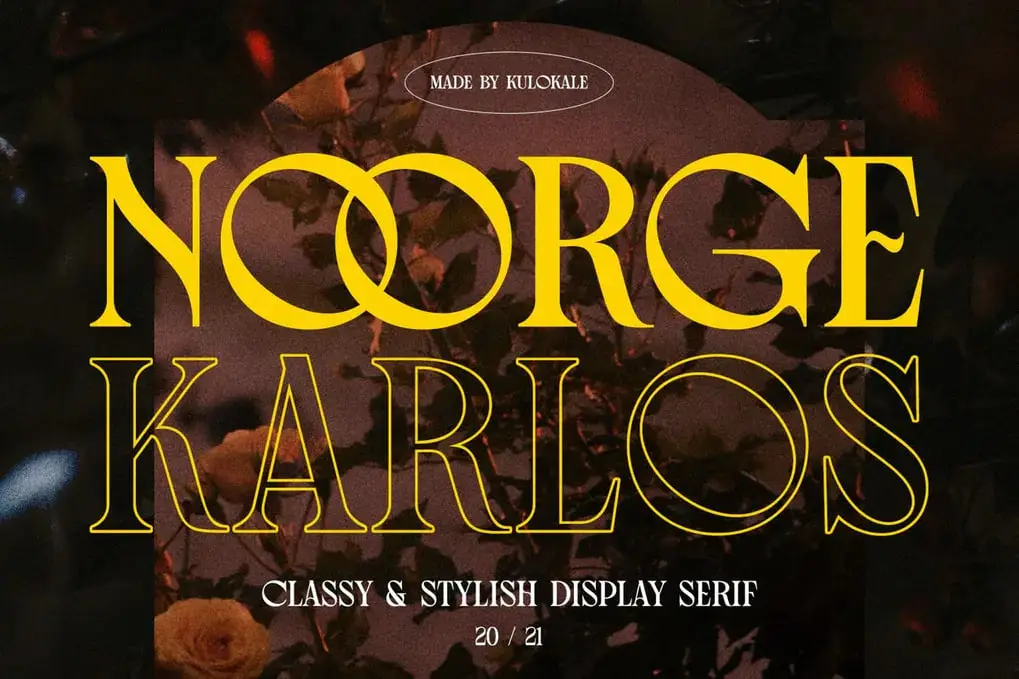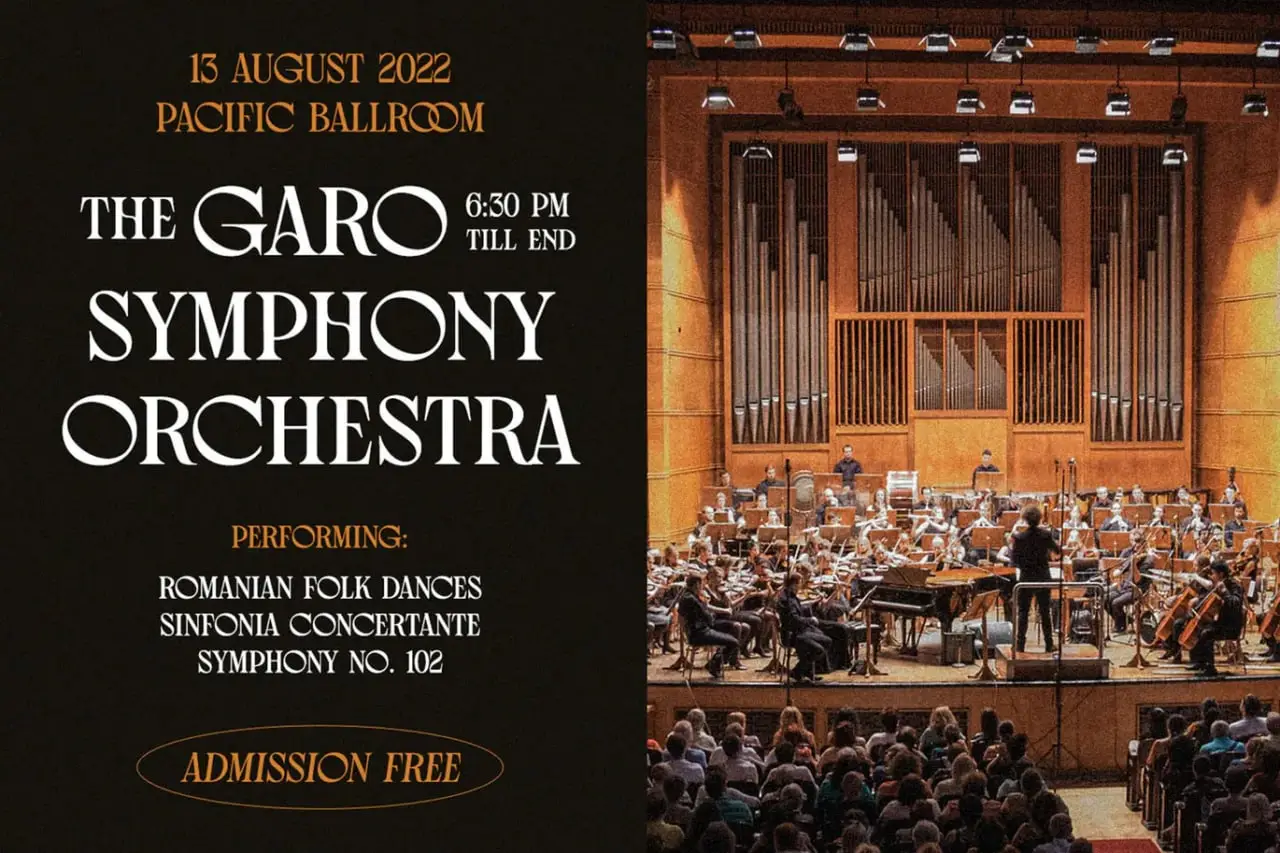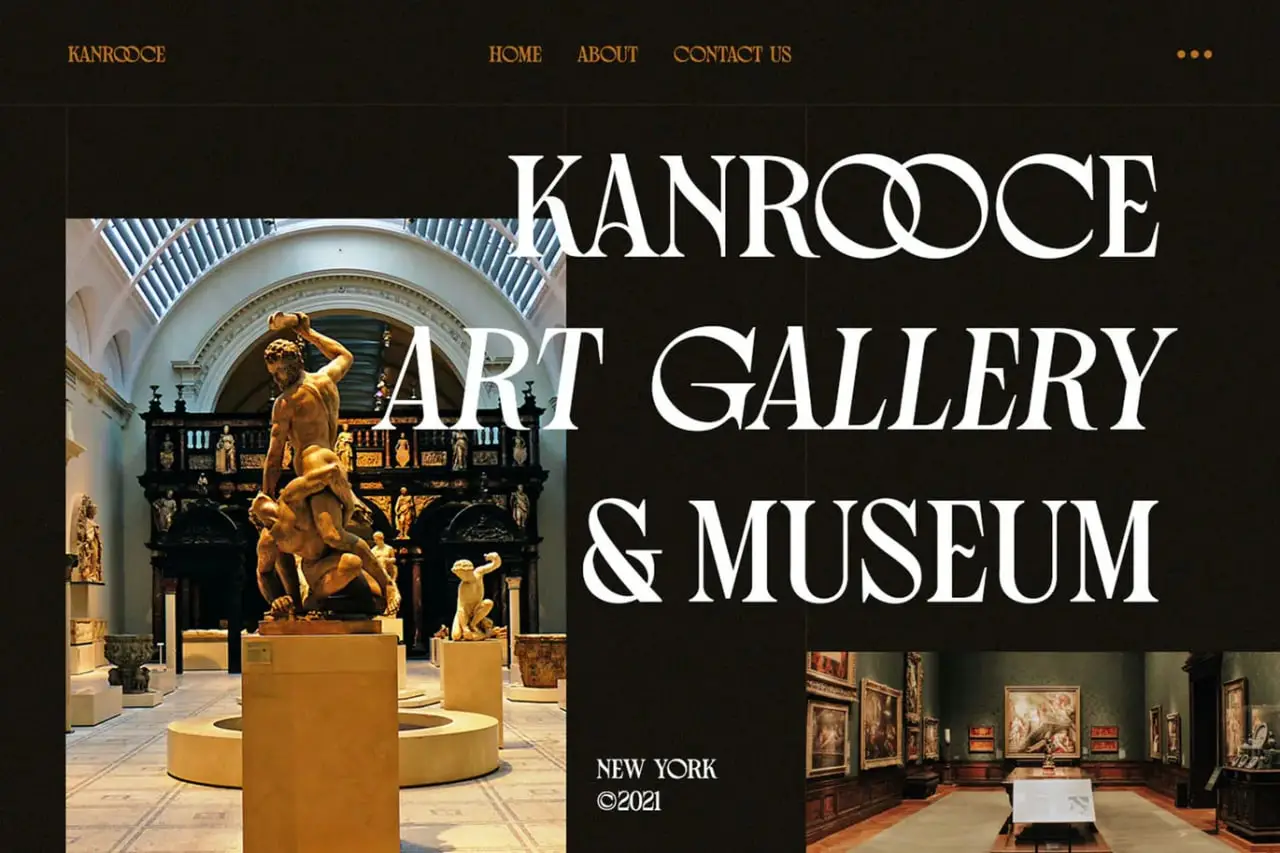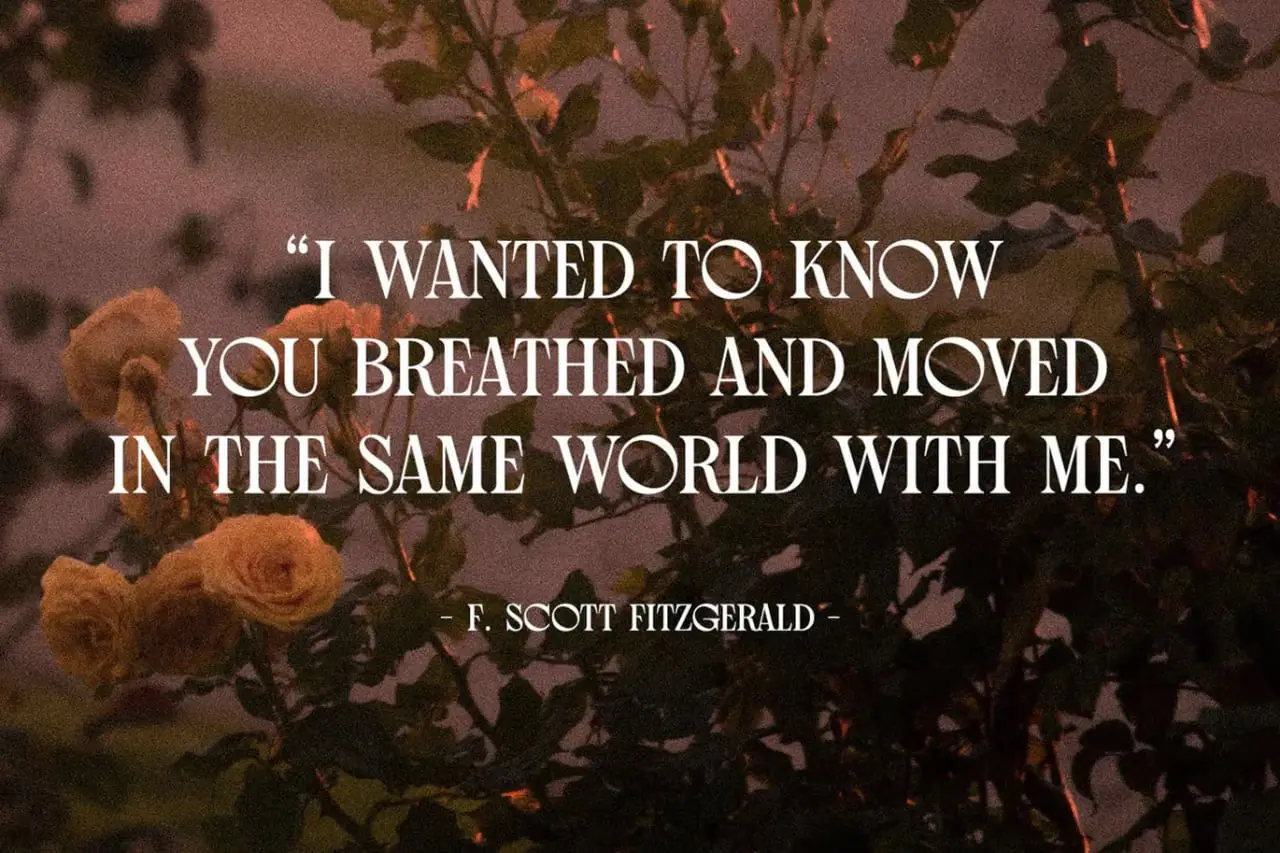
Noorge Karlos is a vintage and classy display serif font designed by Kulokale Studio. This elegant typeface features a unique blend of traditional serif characteristics with a modern twist, making it perfect for a variety of design projects.
- Stylish serif design
- Uppercase and lowercase letters
- Numerals and punctuation included
This font is ideal for branding, logos, packaging, posters, and any project that requires a touch of elegance and sophistication.